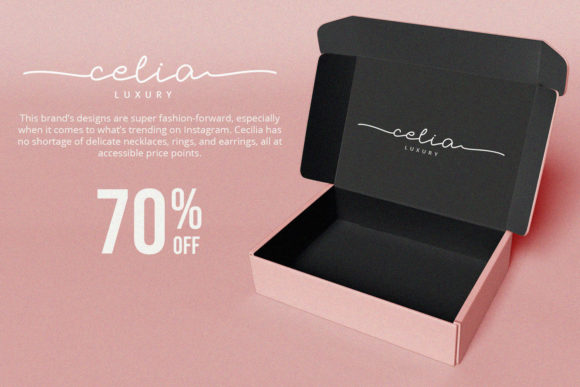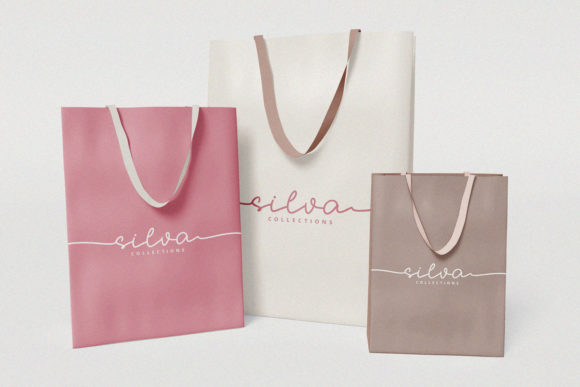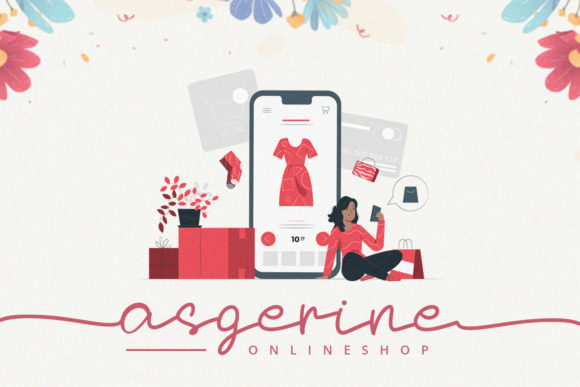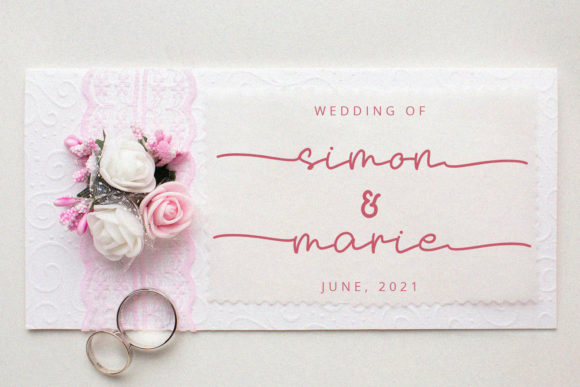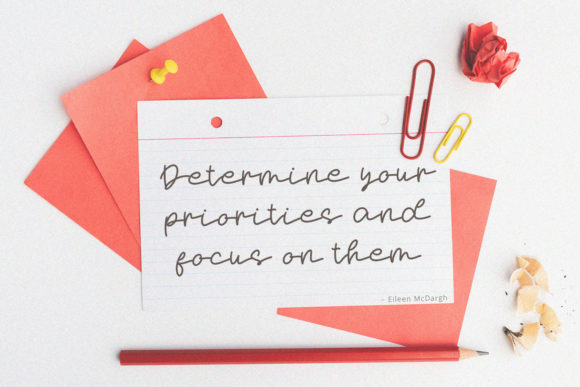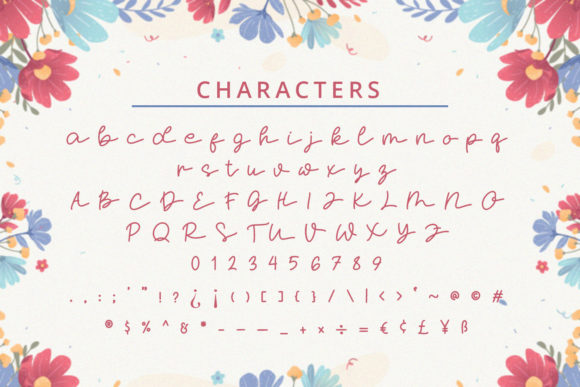
Momy & Marsa Font
About Momy & Marsa Font
Momy & Marsa is a lovely, romantic, and flowing script font. It is PUA encoded which means you can access all of the glyphs and swashes with ease! Add this font to each of your favorite creations and you will love the final result.